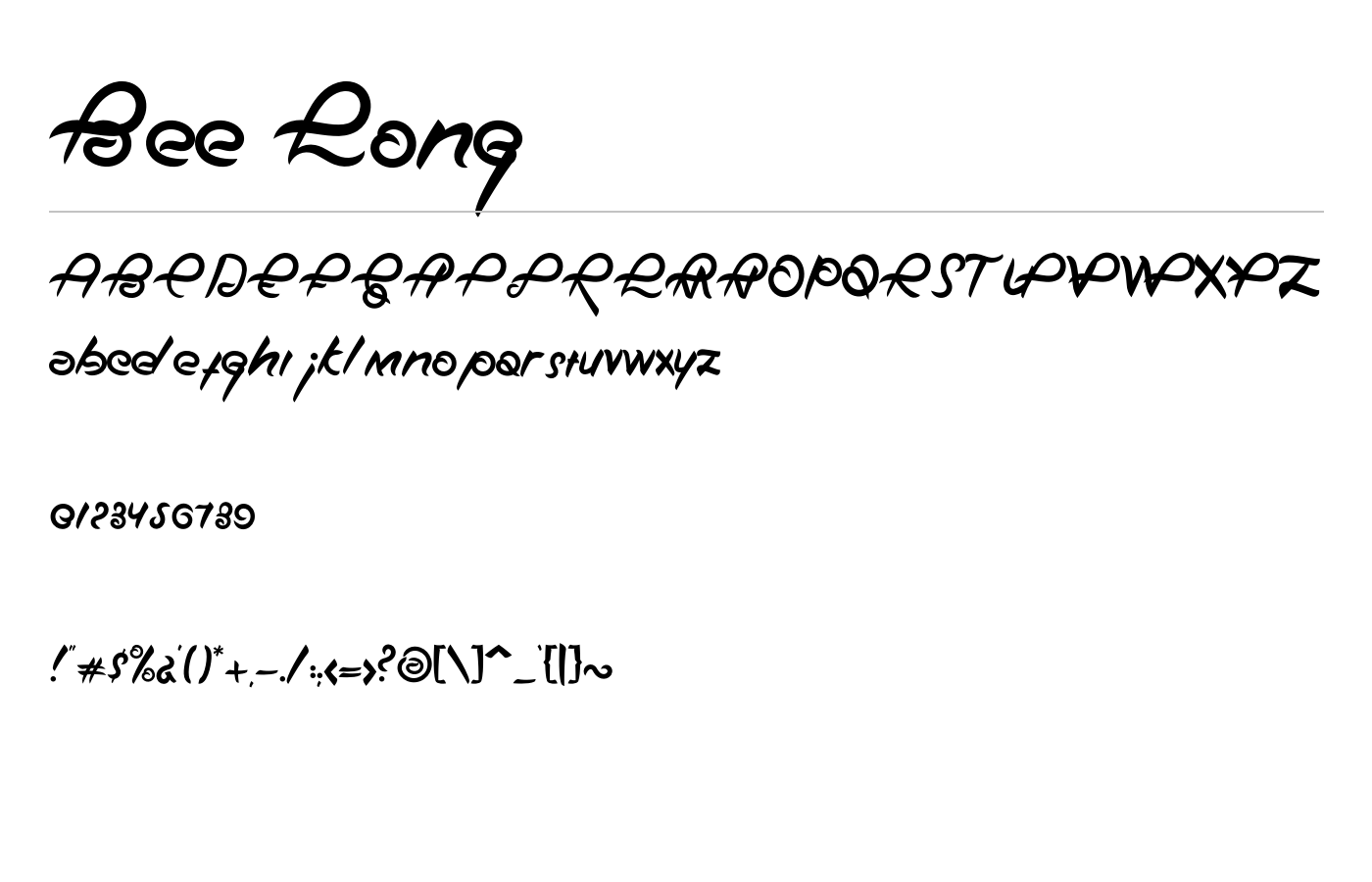
Bee Long is a playful, script-inspired font with unique, flowing letterforms that combine smooth curves and sharp angles for a quirky, artistic feel. Its slightly condensed style and consistent weight make it ideal for creative headlines and logos where a distinctive, informal charm is desired. This font works well for projects needing a whimsical yet stylish touch, such as branding, posters, or personalized design applications.
Bee Long Font
About Bee Long Font